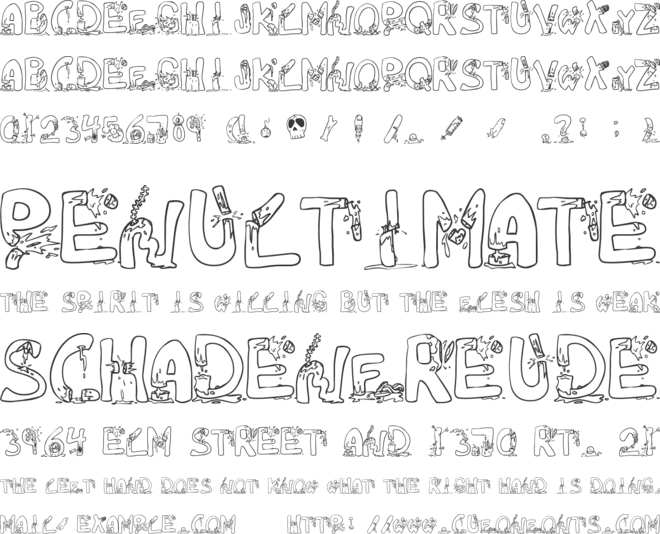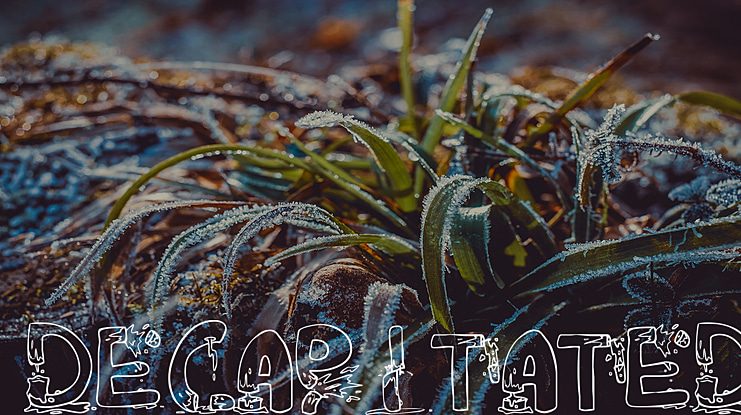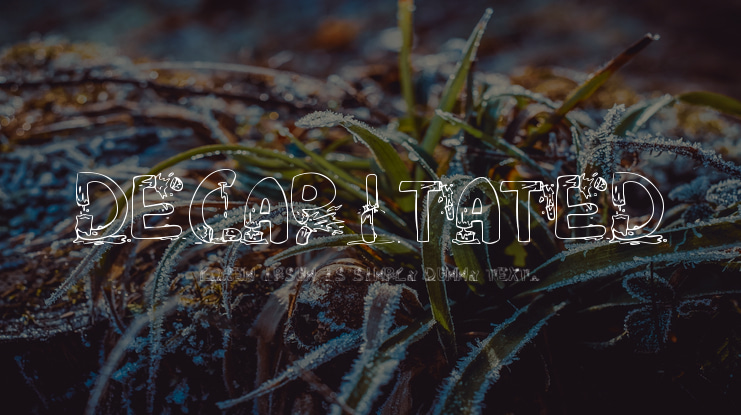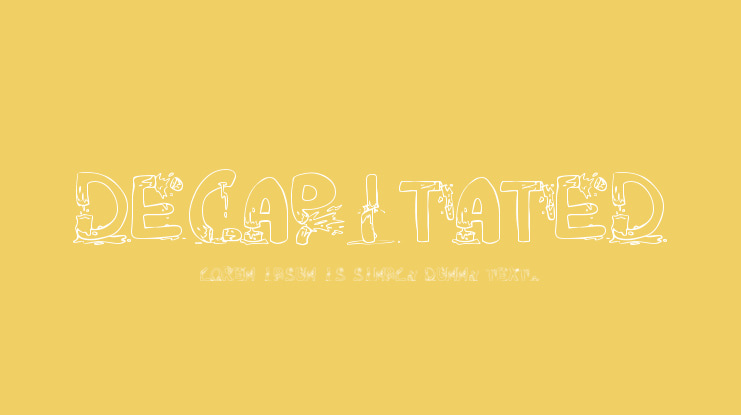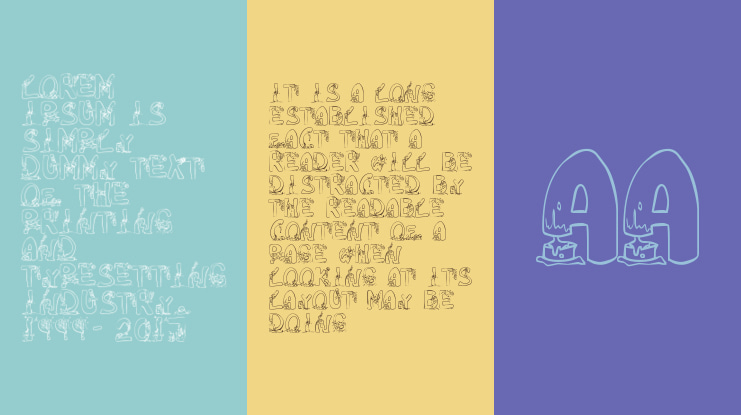
DeCAPitated Font
I just started making fonts, so here's one that I like.
PS- this is only good if the font is large, its not for writing paragraphs and stuff, just like Titles that are large.